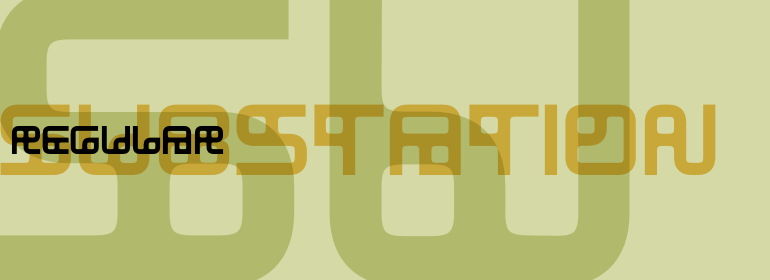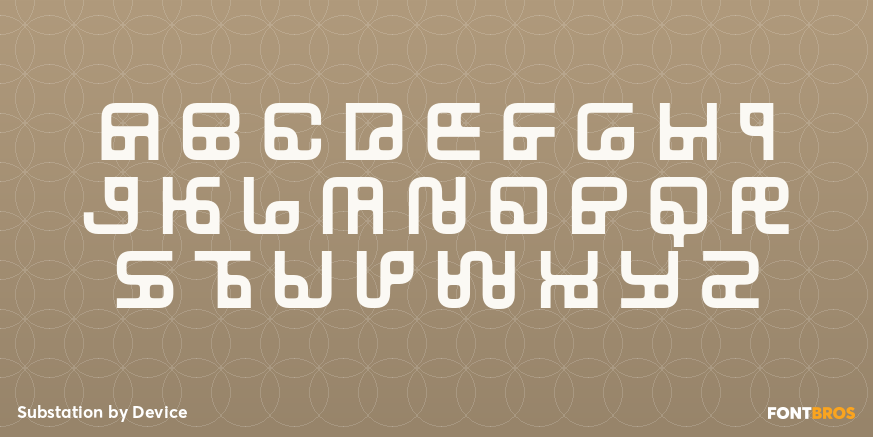
Substation
Font Family by Device
Buy NowSubstation is a futuristic special effect display font from Device with a sharp, engineered feel. Its styling suggests technology, motion, and sci-fi energy, making it a strong choice when you want typography that feels bold, synthetic, and visually striking.
With 1 included style, this family is best suited to standout uses rather than long text. It works well for posters, branding concepts, packaging, social graphics, and other display settings where a distinctive futuristic voice can do the heavy lifting.